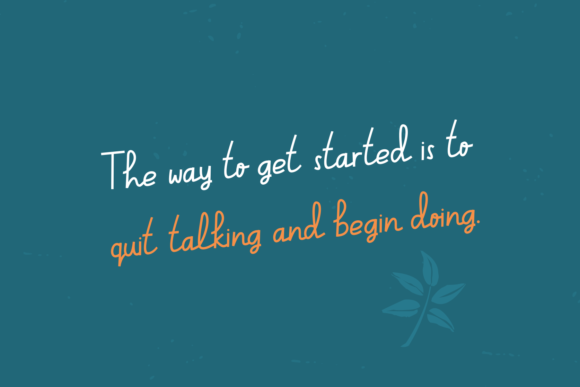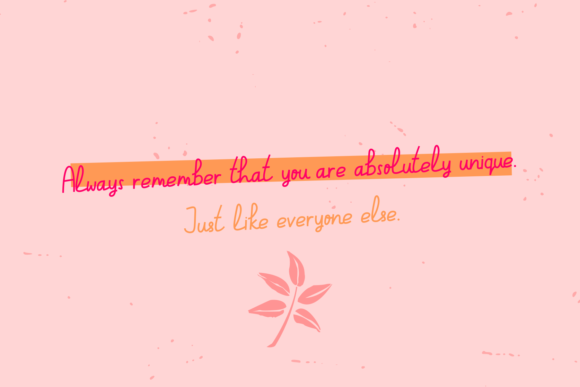
Introducing Avocado Ice Font: Elevate Your Designs with a Refreshing Twist
Are you tired of using the same old fonts in your designs? Look no further! Avocado Ice Font is a game-changing script font that brings a unique and refreshing style to the table. With its clean, thin, and smooth vibe, this font is sure to make a hit in any design you add it to.
What Makes Avocado Ice Font Special?
Avocado Ice Font boasts a distinctive script style that sets it apart from other fonts. Its thin and smooth lines give it a elegant and sophisticated feel, making it perfect for a variety of design applications. Whether you’re creating stationary art, wedding invitations, greeting cards, or social media posts, this font is sure to add a touch of class and refinement.
Endless Design Possibilities with Avocado Ice Font
One of the best things about Avocado Ice Font is its versatility. This font can be used in a wide range of design projects, including:
- Stationary Art: Add a touch of elegance to your stationery with Avocado Ice Font. Use it to create beautiful letterheads, envelopes, and notecards that will make your correspondence stand out.
- Wedding Invitations: Make your wedding invitations truly special with Avocado Ice Font. Its romantic and sophisticated feel makes it perfect for wedding designs, and its clean lines ensure that your invitation will be easy to read.
- Greeting Cards: Create beautiful and heartfelt greeting cards with Avocado Ice Font. Whether it’s a birthday, anniversary, or holiday card, this font will add a touch of warmth and personality to your design.
- Social Media Posts: Take your social media posts to the next level with Avocado Ice Font. Use it to create eye-catching graphics, quotes, and promotions that will grab the attention of your followers.
Why Designers and Crafters Love Avocado Ice Font
Avocado Ice Font has quickly become a favorite among designers and crafters, and for good reason. Here are just a few reasons why:
- Easy to Read: Despite its thin lines, Avocado Ice Font is surprisingly easy to read, making it perfect for designs where you need to convey a message.
- Highly Versatile: Whether you’re creating digital or print designs, Avocado Ice Font will work beautifully.
- Unique Style: Avocado Ice Font has a unique style that will set your designs apart from the crowd.
Tips for Using Avocado Ice Font
To get the most out of Avocado Ice Font, here are a few tips to keep in mind:
- Pair it with Bold Fonts: Avocado Ice Font looks great when paired with bold fonts. Try using it with a bold sans-serif font to create a striking contrast.
- Experiment with Colors: Avocado Ice Font works beautifully with a range of colors. Try using it with pastel colors for a soft, romantic look, or with bold brights for a more playful feel.
- Use it to Add Emphasis: Avocado Ice Font is perfect for adding emphasis to your designs. Use it to highlight important information, or to create beautiful headings and titles.
| Font Name | Avocado Ice Font |
| Author | The Grateful Studio |
Avocado Ice Font is a game-changing script font that is sure to elevate your designs to the next level. With its unique style, clean lines, and smooth vibe, this font is perfect for a wide range of design applications. Whether you’re a designer, crafter, or simply someone who loves to create, Avocado Ice Font is a must-have addition to your font collection.